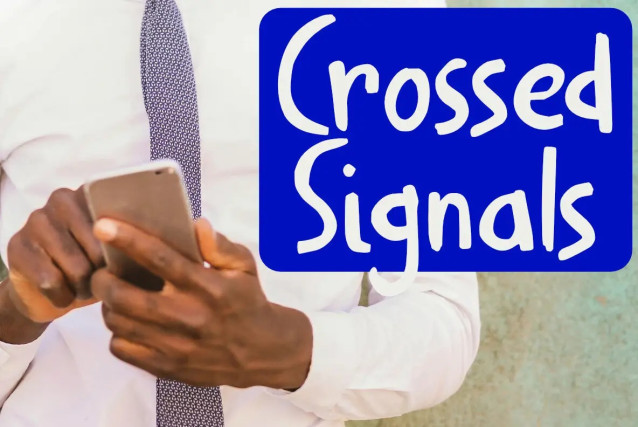
Crossed Signals Font
Crossed Signals font, add a touch of humor to your projects, a font designed to lighten the mood in difficult times. Inspired by recent unusual events, this font has a fun sloppiness that adds personality to comics and satirical publications. Whether you’re creating a quirky headline or a fun illustration, Crossed Signals brings a touch of whimsy to your work.